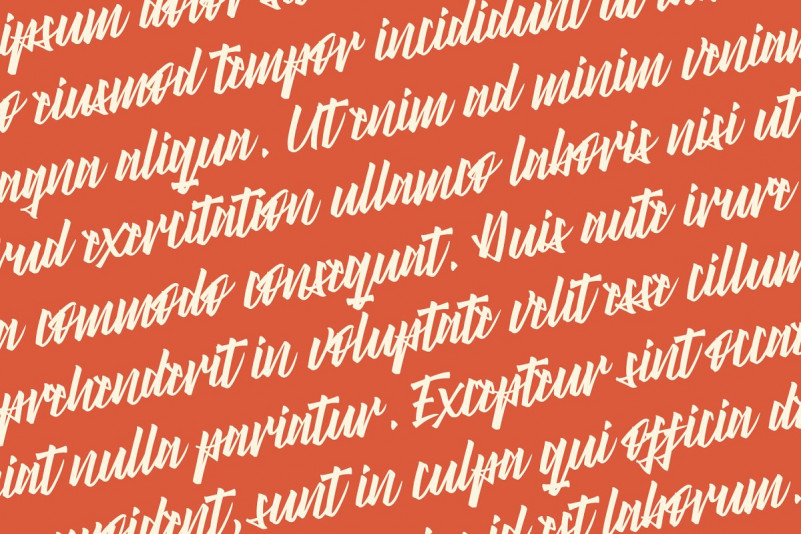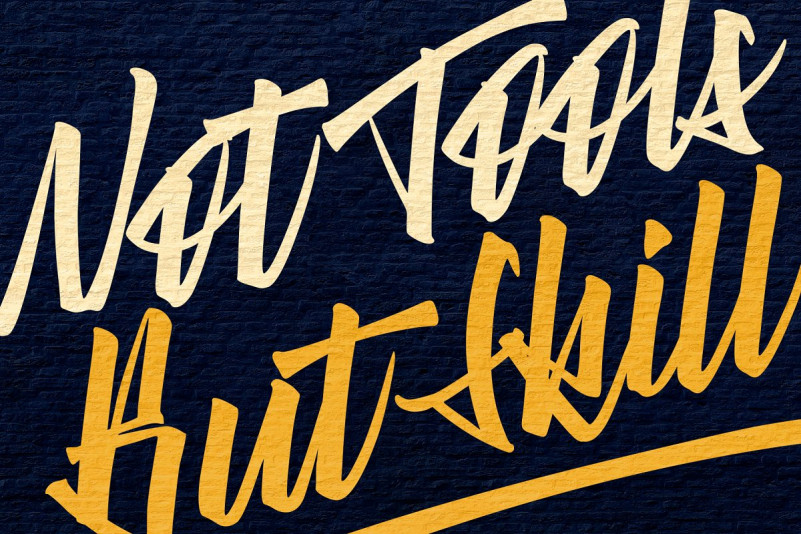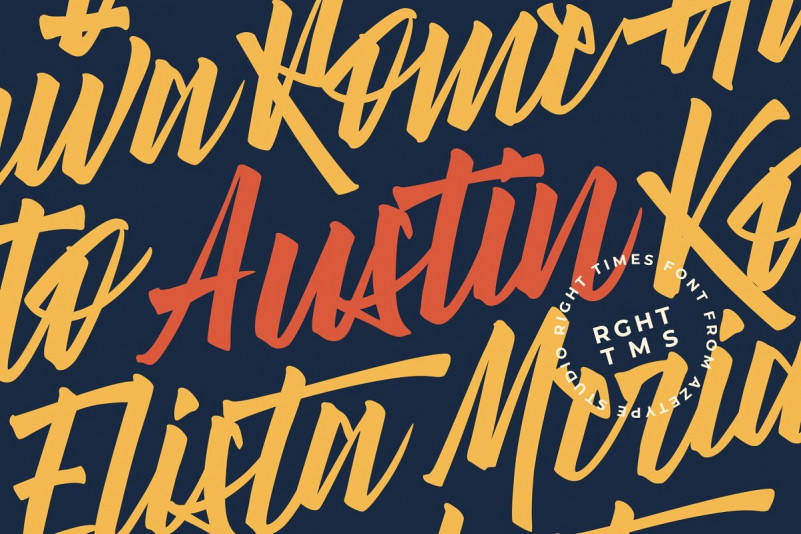
Right Times Brush Font
Hi designer! Befonts introducing new brush font “Right Times Font“. Right Times Brush Font! A Distinct Brush Script. This font made with the perfect combining of each character. It looks original and can be used for all your project needs. This font can be used at any time and any project. So, Right Times Font can’t wait to give its touch to all your design projects such as quotes, poster design, personal branding, promotional materials, logotype, product packaging, brand sign, fashion, denim fashion, just overlay on the image, etc.